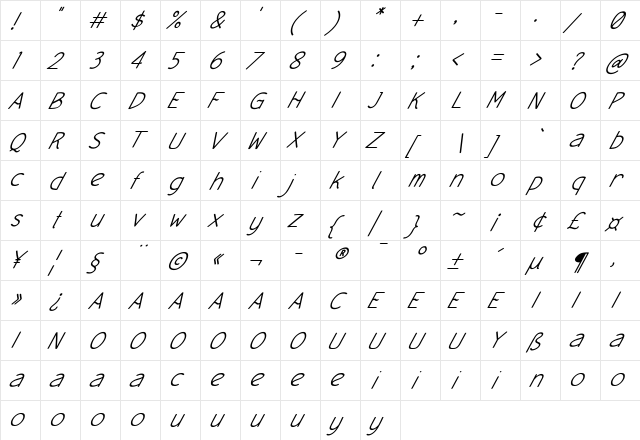
Mattilda Italic Regular
Design Context for Mattilda Italic Typeface
Mattilda Italic offers clean, dependable letterforms without strong stylistic allegiance, making it a practical choice for designers who need flexibility. Its italic angle brings a sense of urgency and motion to the letterforms.
Pro Tip: Try Mattilda Italic for annotation and caption copy alongside an upright companion — the contrast in angle creates a dynamic but ordered typographic system.